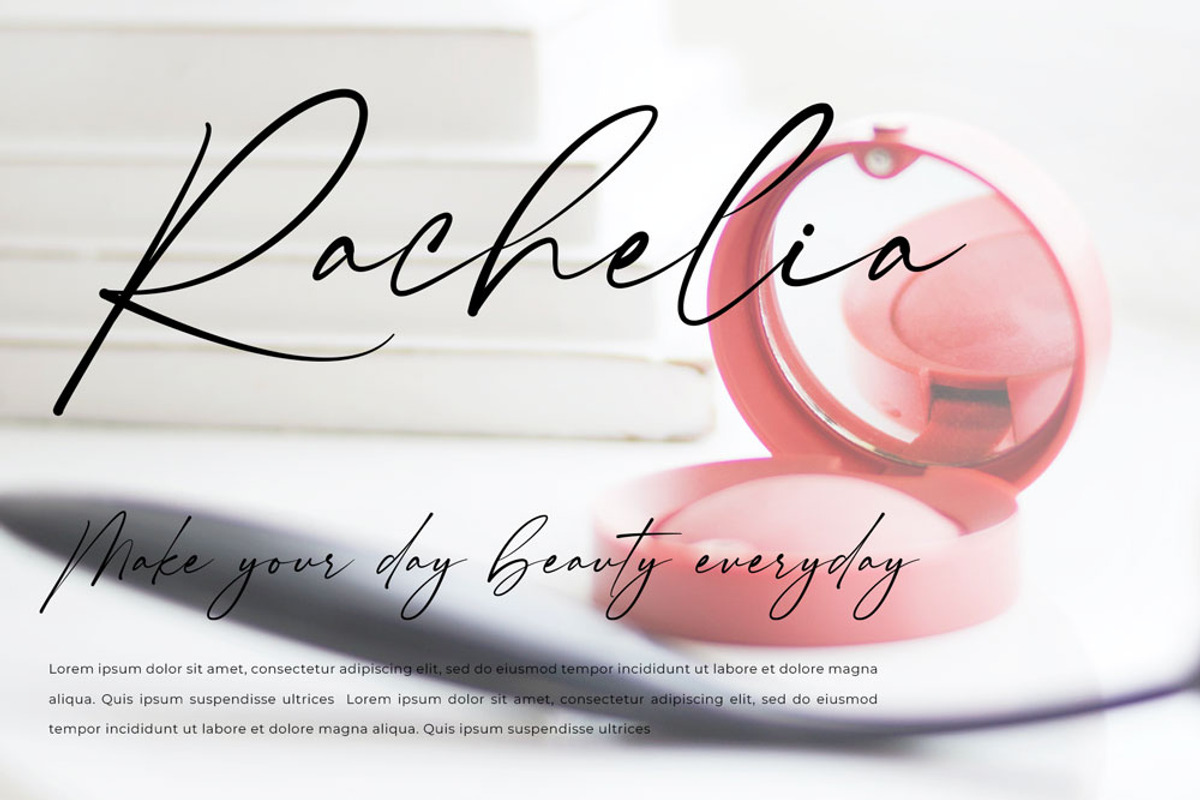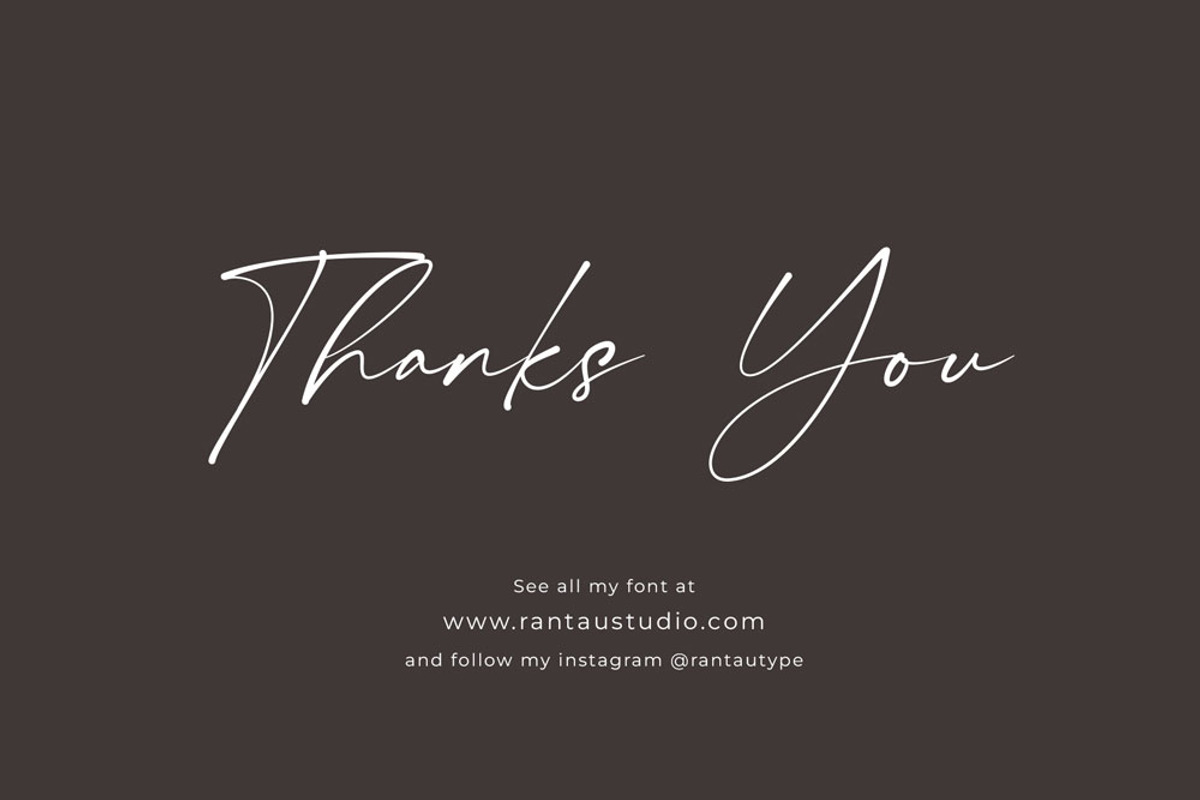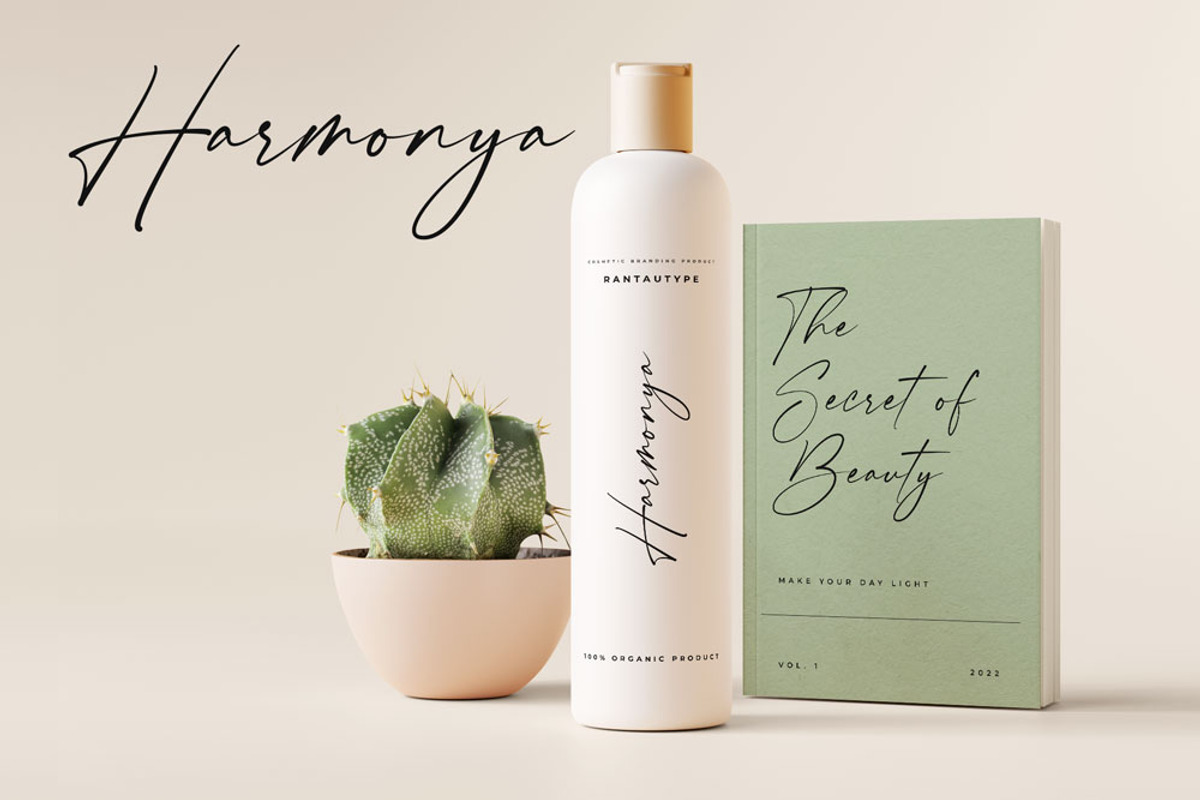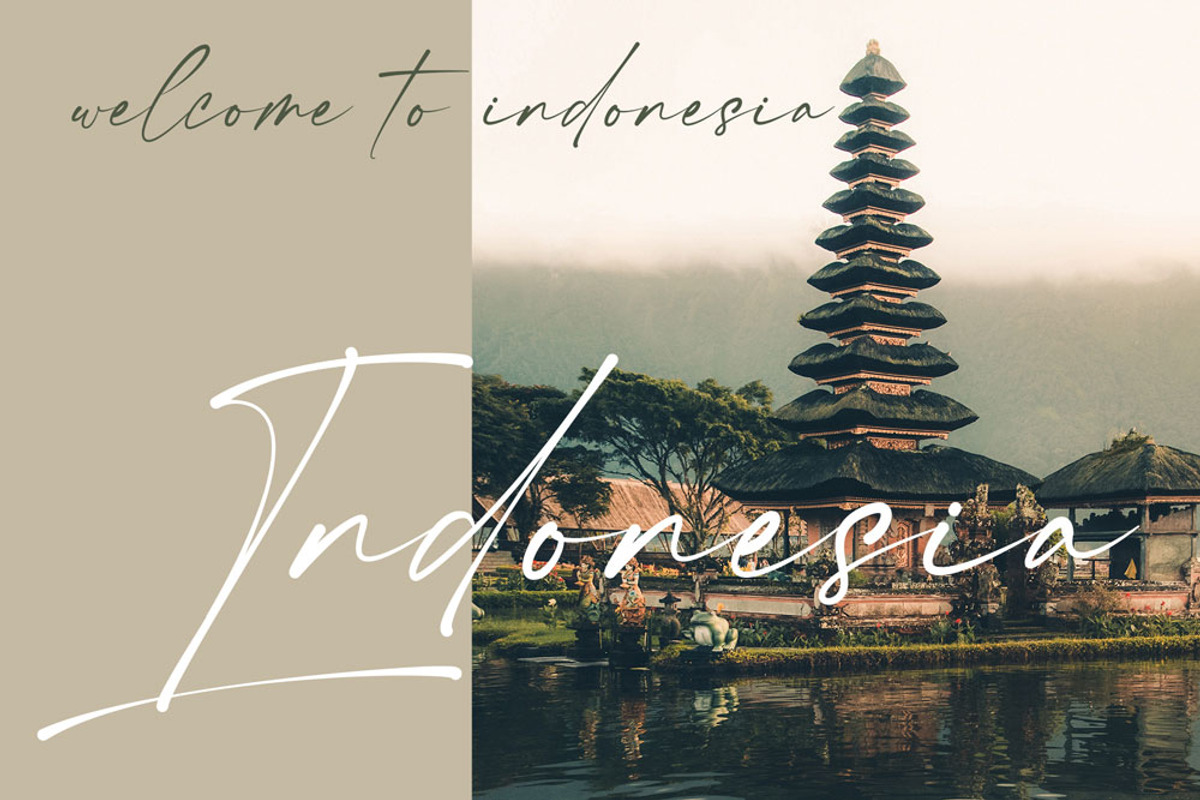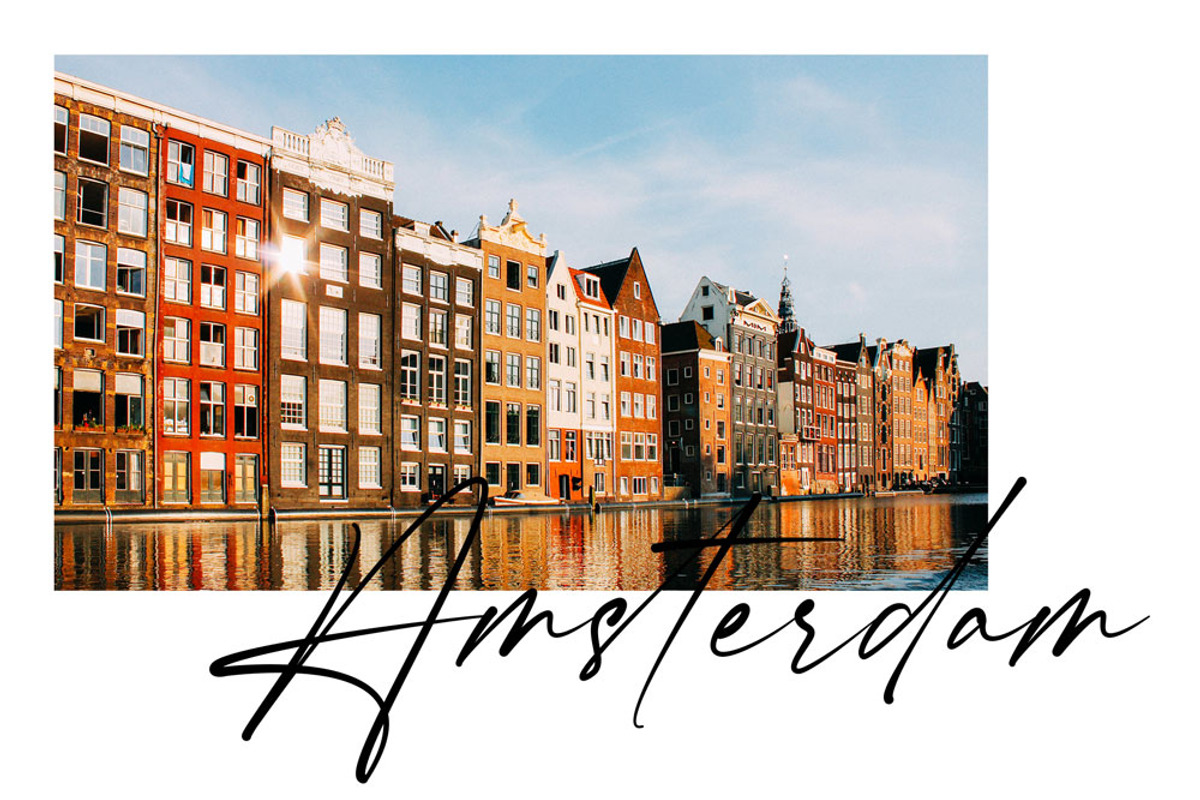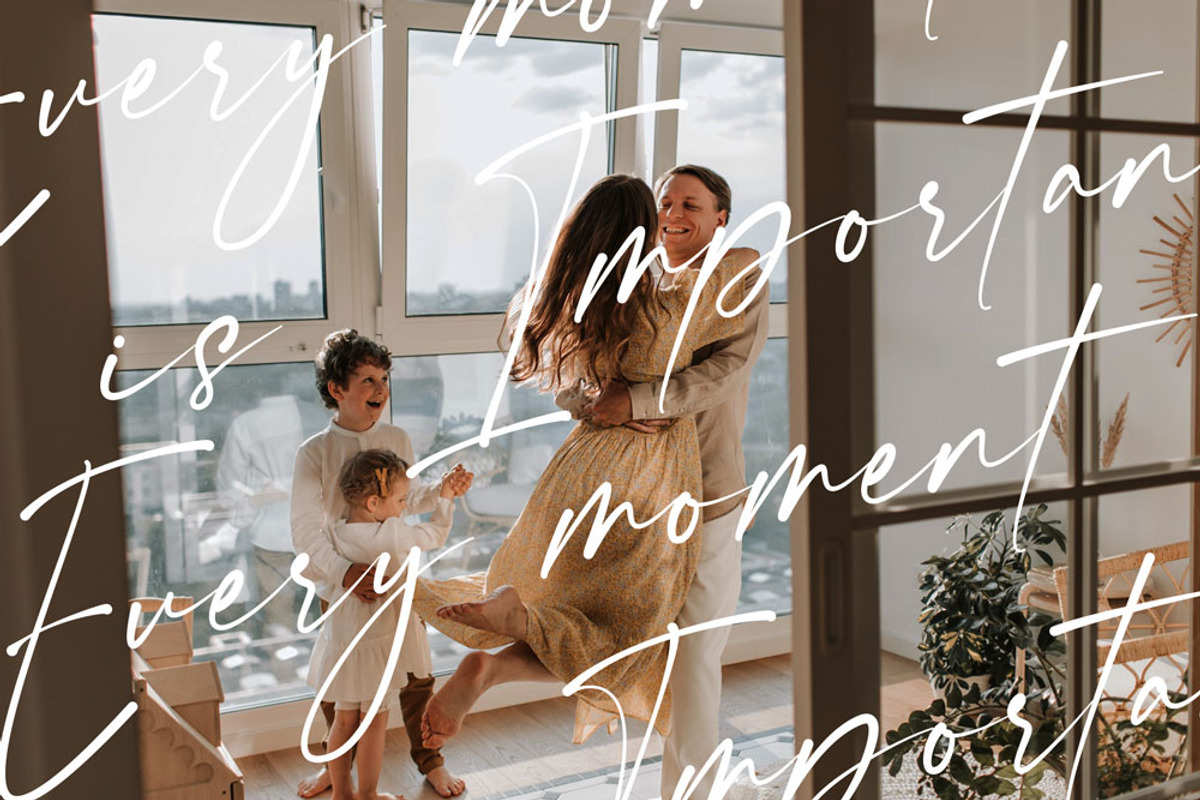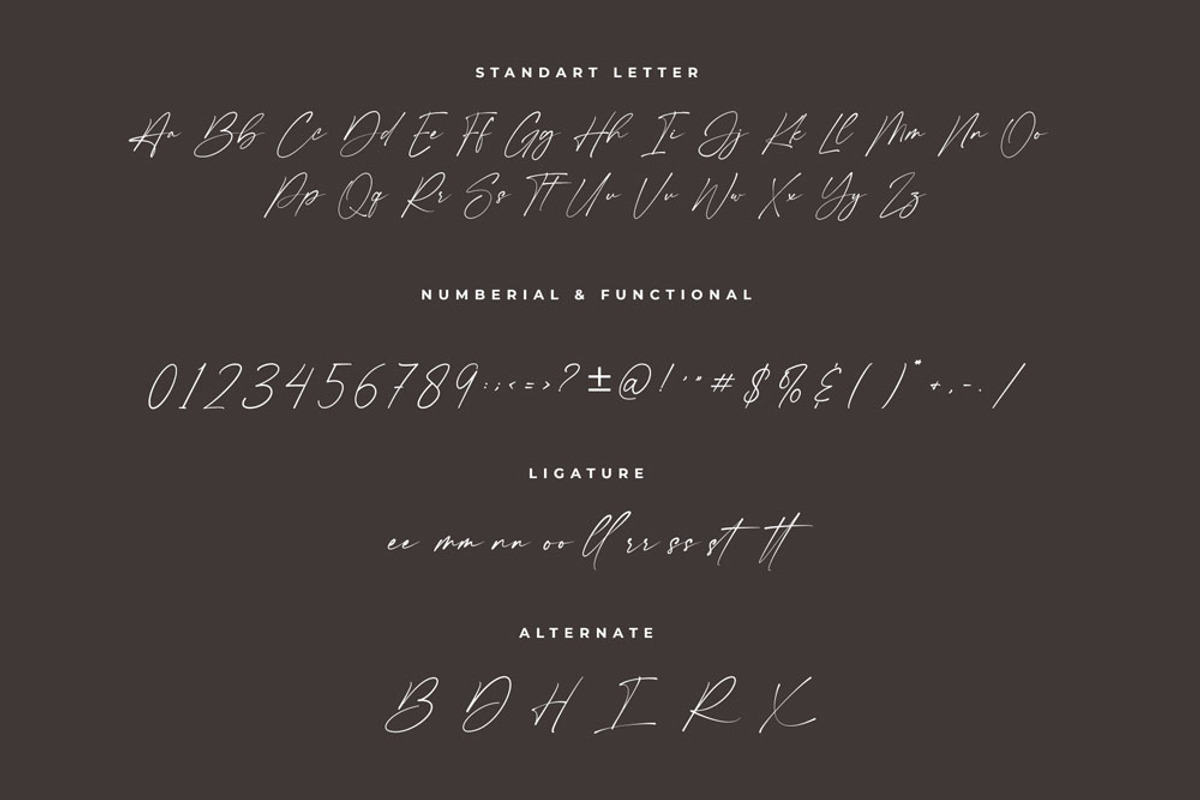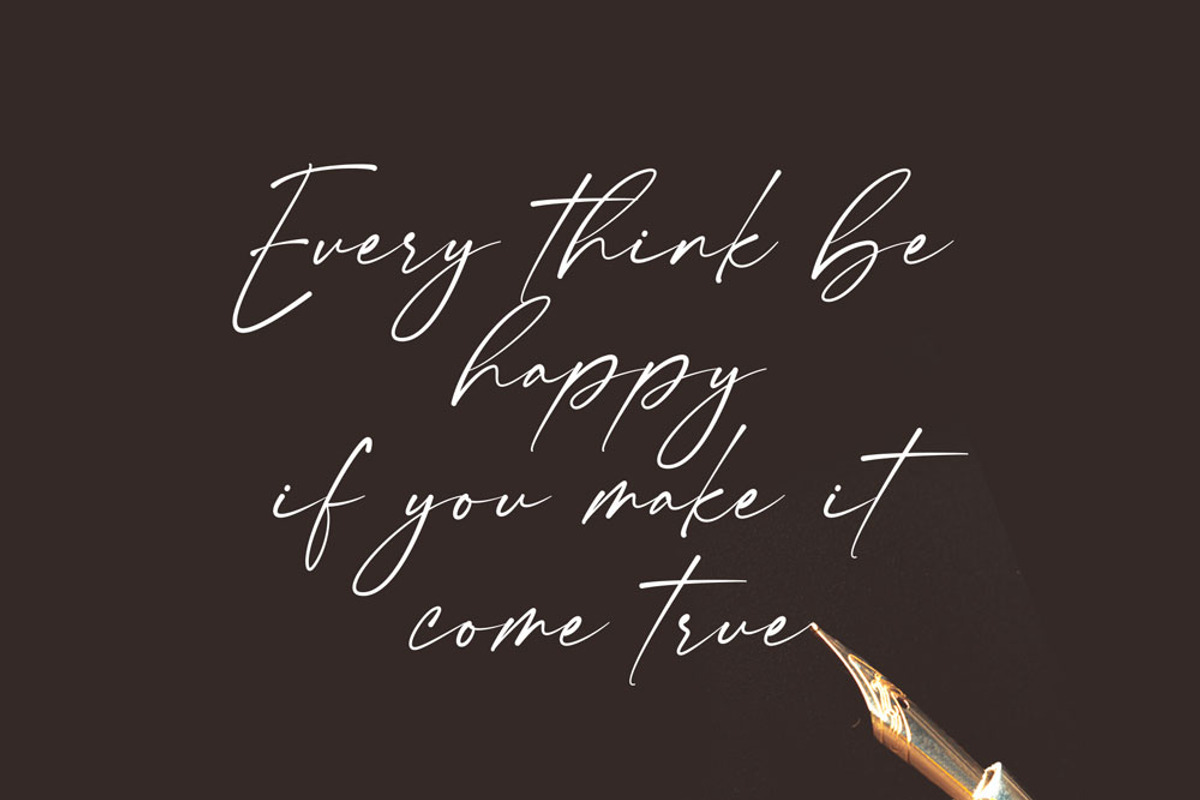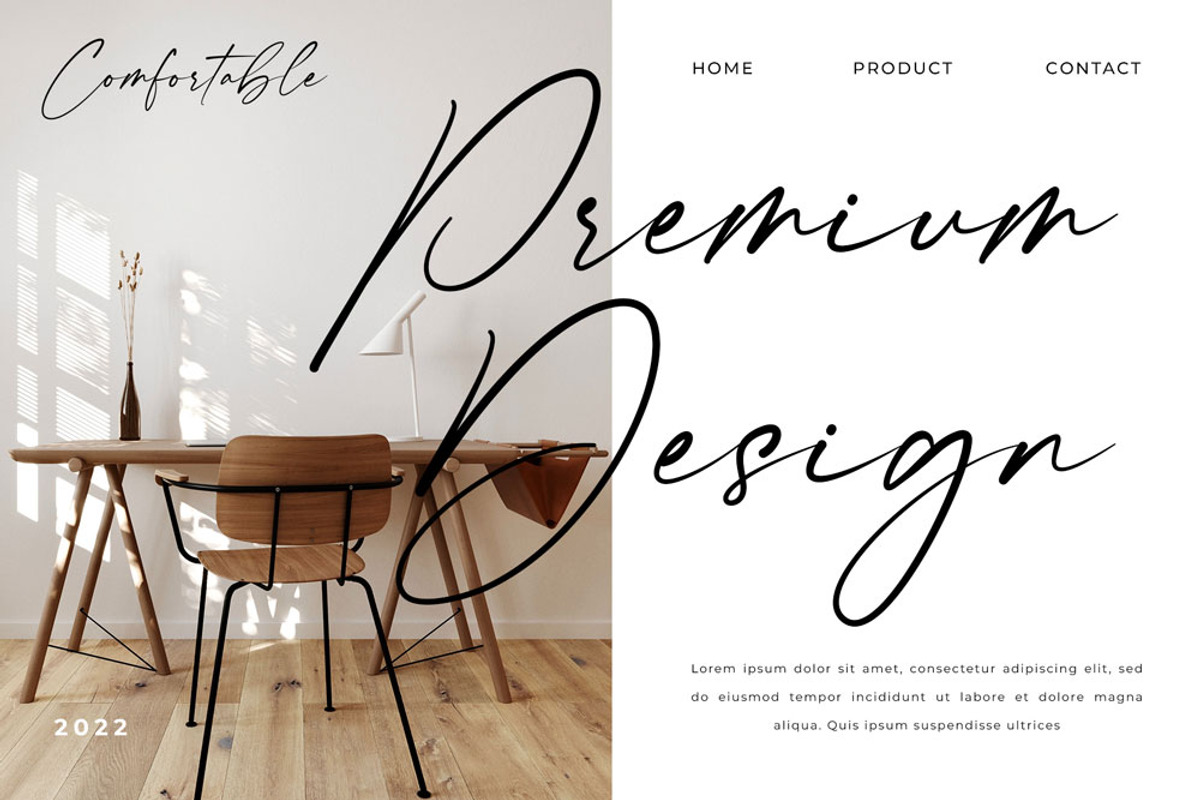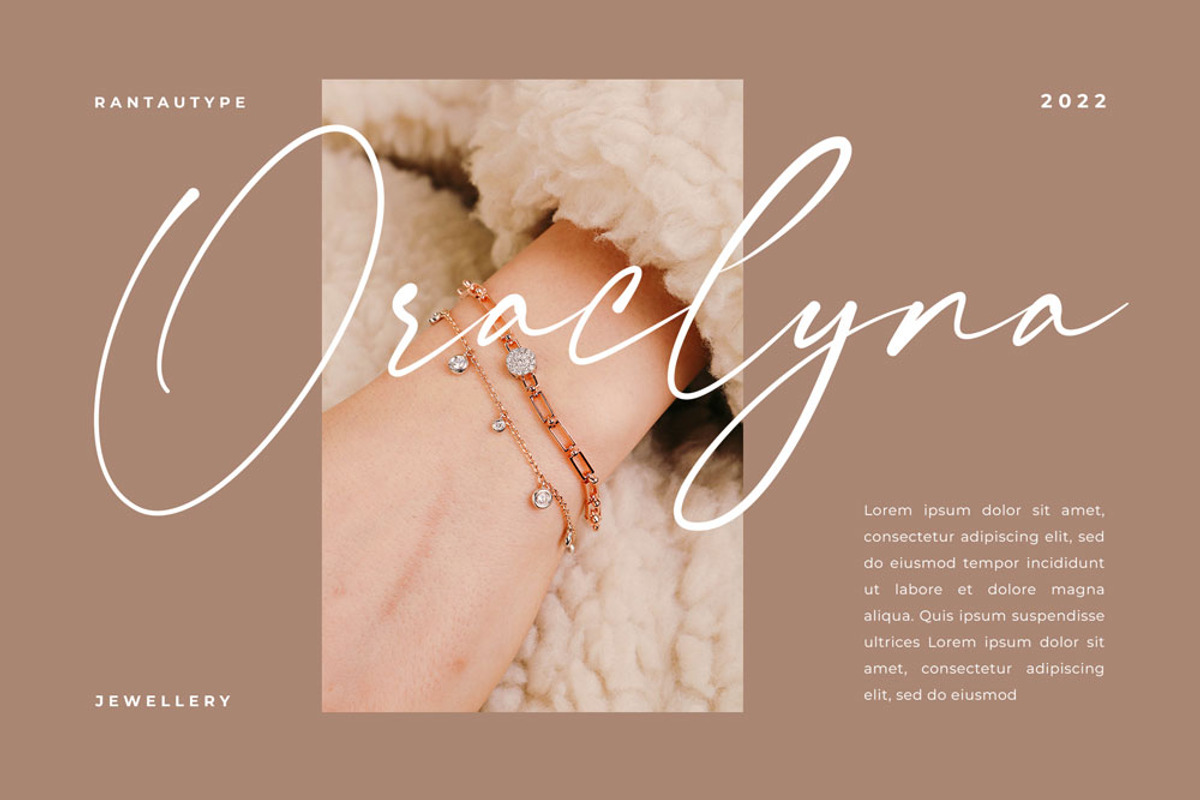
Shamson Signature Font
Hi Ladies and Gentleman ! Proudly present another signature font “Shamson signature”. This font is elegant style which can be interpreted professional. we keep this font looks elegant, luxury, premium, modern, readable, stylish, feminine, girly, catchy and easy to use also included with more swash. Shamson signature is the great choice for watermark on photography, signature or signature logo design, quotes, album cover, magazine, business card and many other design project. Shamson signature here to make your work to high level!!!
- Standar character A-Z and a-z
- ligature